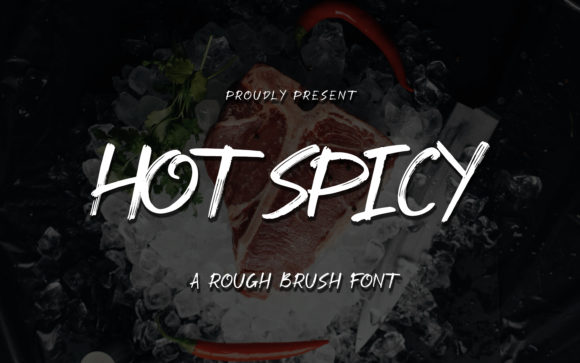
Welcome to the realm of typography, where the ordinary transforms into the extraordinary. Introducing the magnificent Hot Spicy Font, a display masterpiece that will ignite your designs with its raw energy and undeniable charisma.
Hot Spicy is not merely a font; it's an artistic rebellion against the mundane. Its bold and rugged brushstrokes dance across your screen, captivating the eyes and leaving an unforgettable impression. Imagine your posters, flyers, and prints adorned with this fiery script, demanding attention in a world saturated with blandness.
This display font is more than just a design tool; it's an expression of your individuality. Its powerful strokes evoke a sense of strength and authenticity, making it the perfect choice for projects that demand an impactful presence. Unleash your creativity and let Hot Spicy ignite your designs with its unyielding spirit.
Immerse yourself in the boundless possibilities that Hot Spicy Font offers. Its versatility allows for endless experimentation, from eye-catching headlines that command attention to unforgettable logos that leave a lasting legacy. Whether you're a seasoned designer or a typography enthusiast, Hot Spicy will empower you to create visual masterpieces that resonate with your audience.